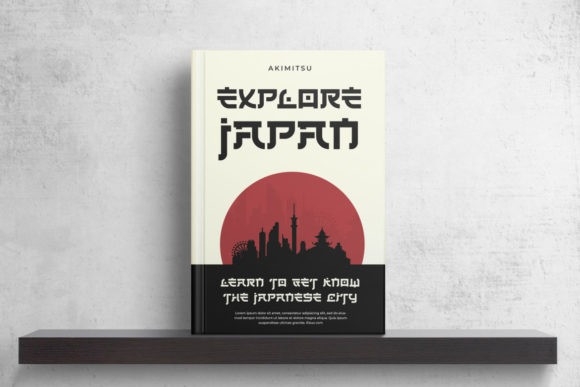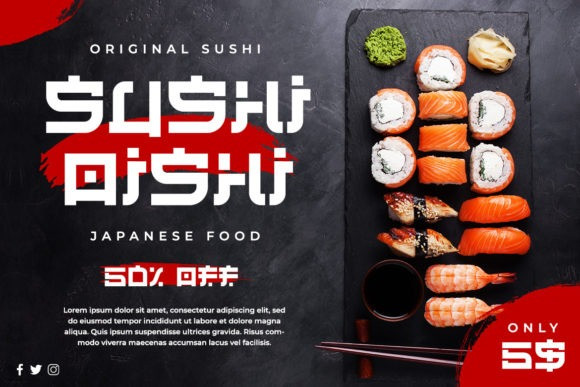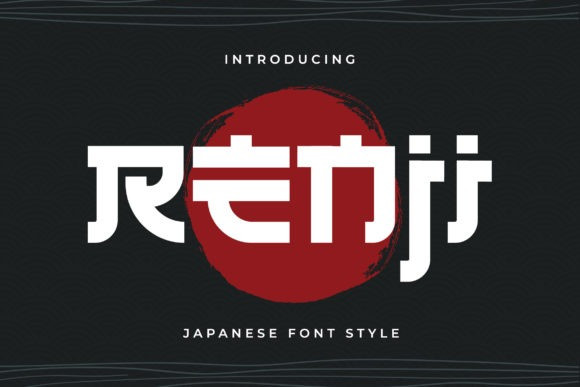
Renji Japanese Font
Renji Japanese Font, is a simple Japanese-inspired display font. It has great readability and will add a striking touch to any design! Add it to t-shirts, restaurant brands, name tags, and more!